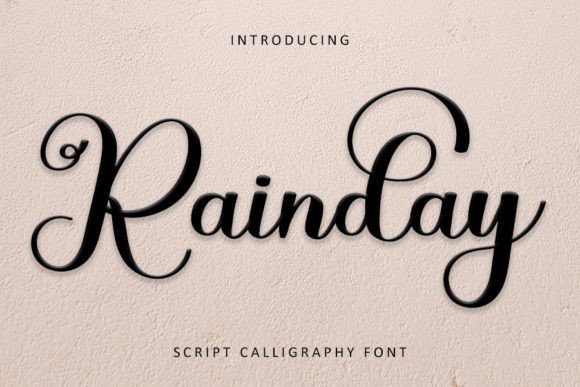
Embrace the allure of sophistication with Rainday Font, an enchanting script that effortlessly exudes elegance and charm. Its meticulously crafted glyphs and swashes, accessible via PUA encoding, provide unparalleled creative freedom.
Unleash your imagination with Rainday's versatility, a font tailored to elevate any design endeavor. Its graceful strokes evoke a sense of warmth and approachability, making it the perfect choice for business websites seeking to establish a strong and lasting connection with their audience.
Envision your website adorned with the timeless beauty of Rainday. Its captivating curves and delicate flourishes will transform your online presence into a work of art. Imagine the allure of headers that dance across the screen, capturing attention and leaving an unforgettable impression.
Indulge in the artistry of Rainday, a font that speaks volumes without uttering a word. Its subtle sophistication will enhance your brand's image, conveying a sense of professionalism and refinement. Embrace the power of typography and let Rainday elevate your business to new heights of success.